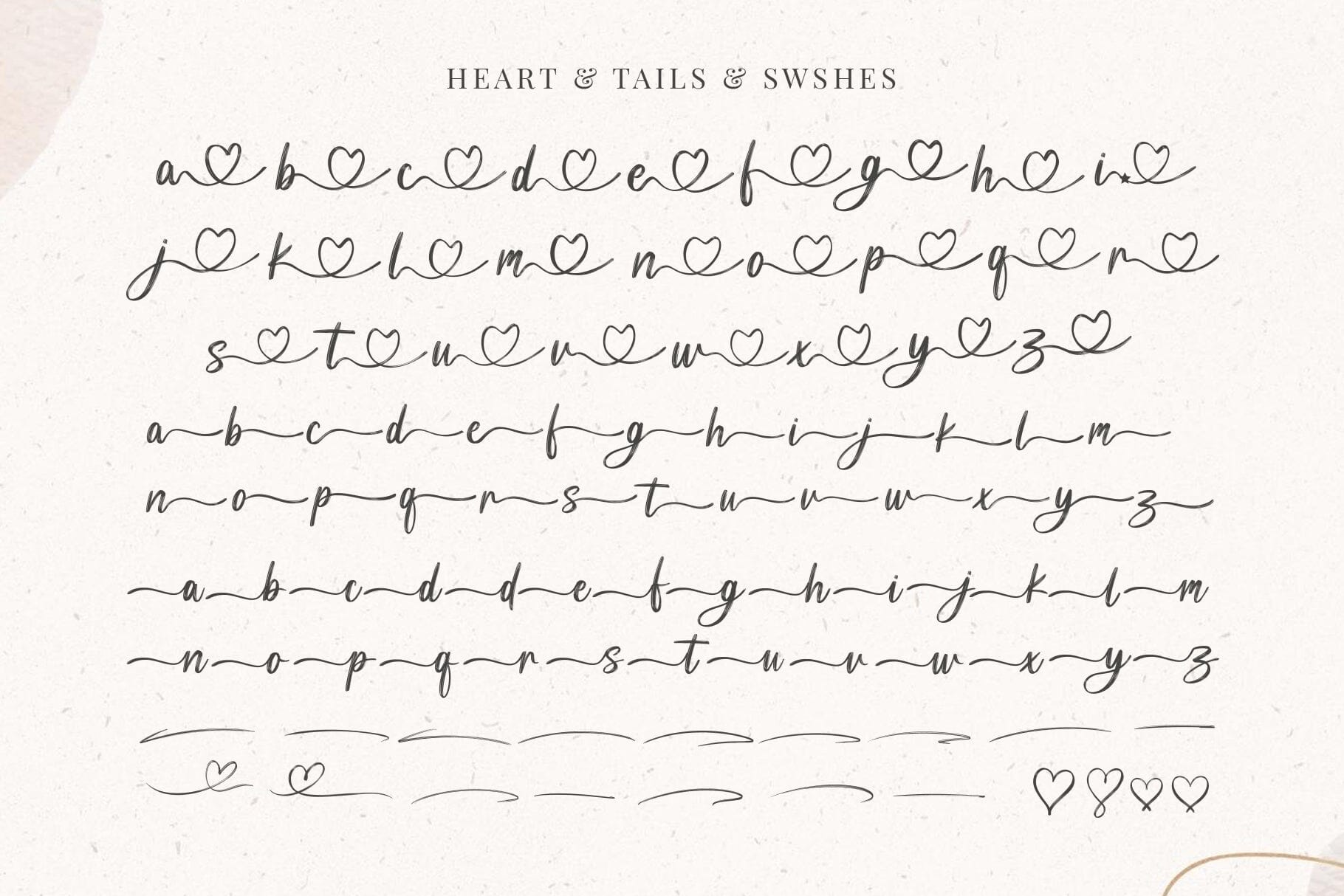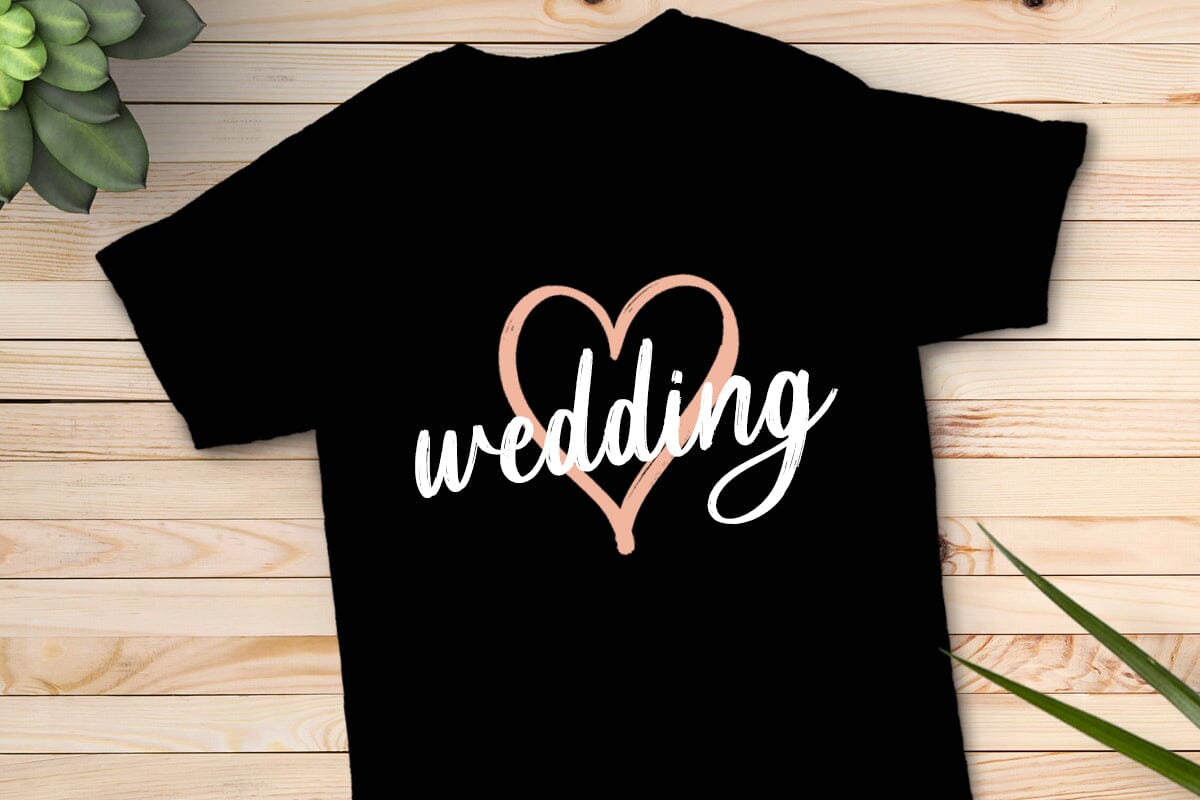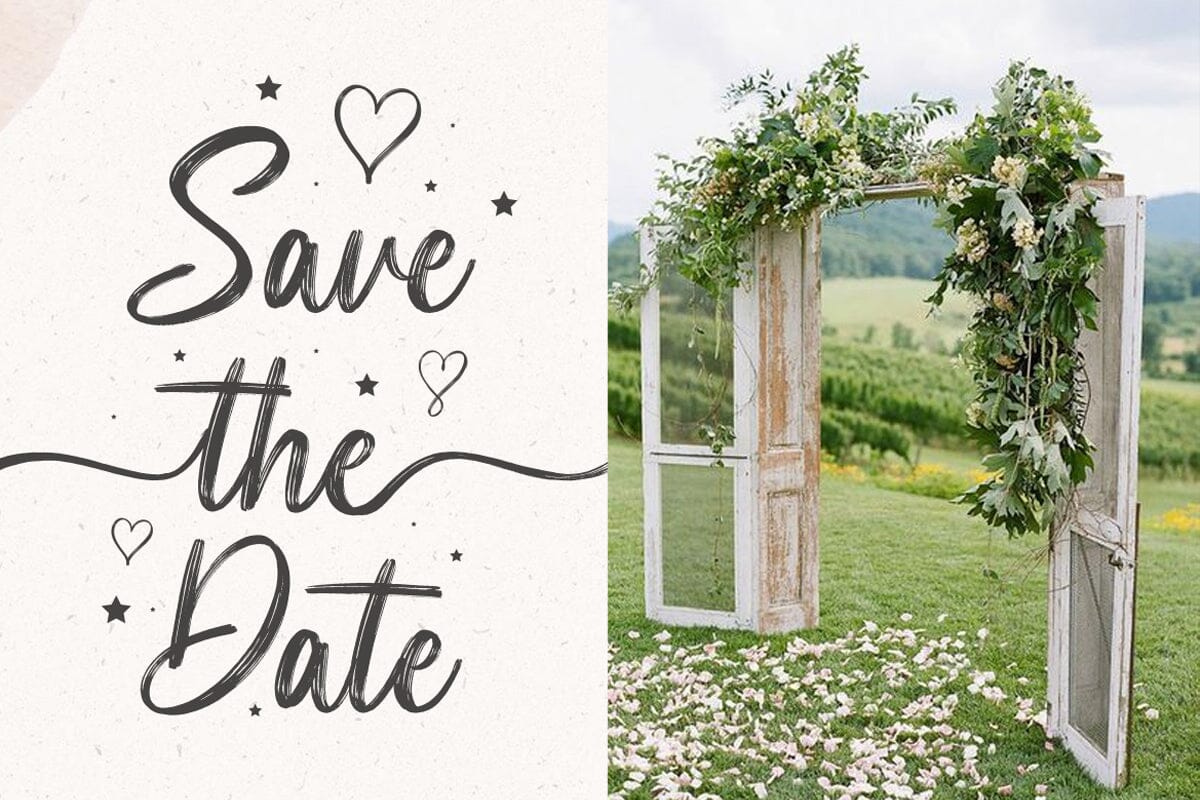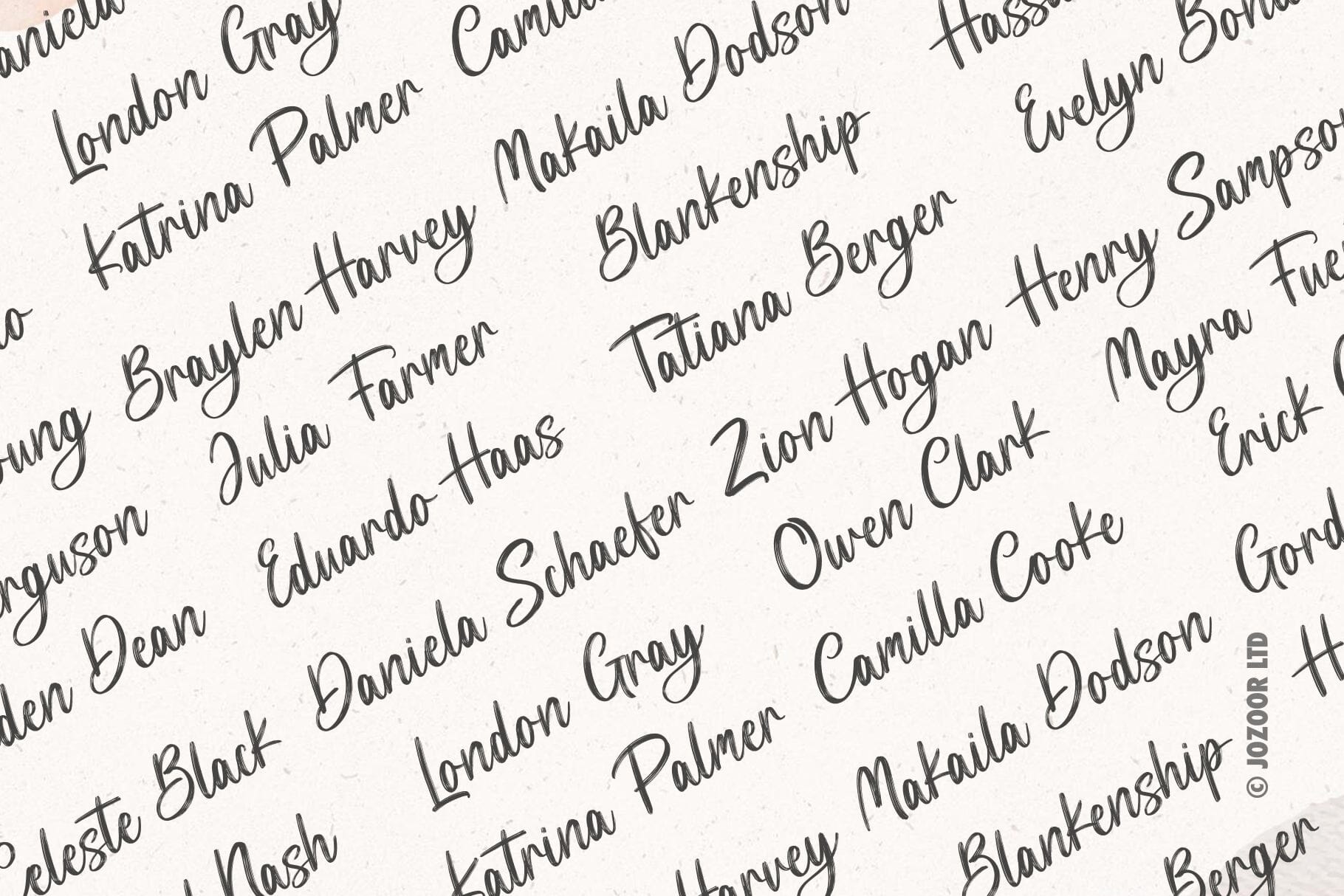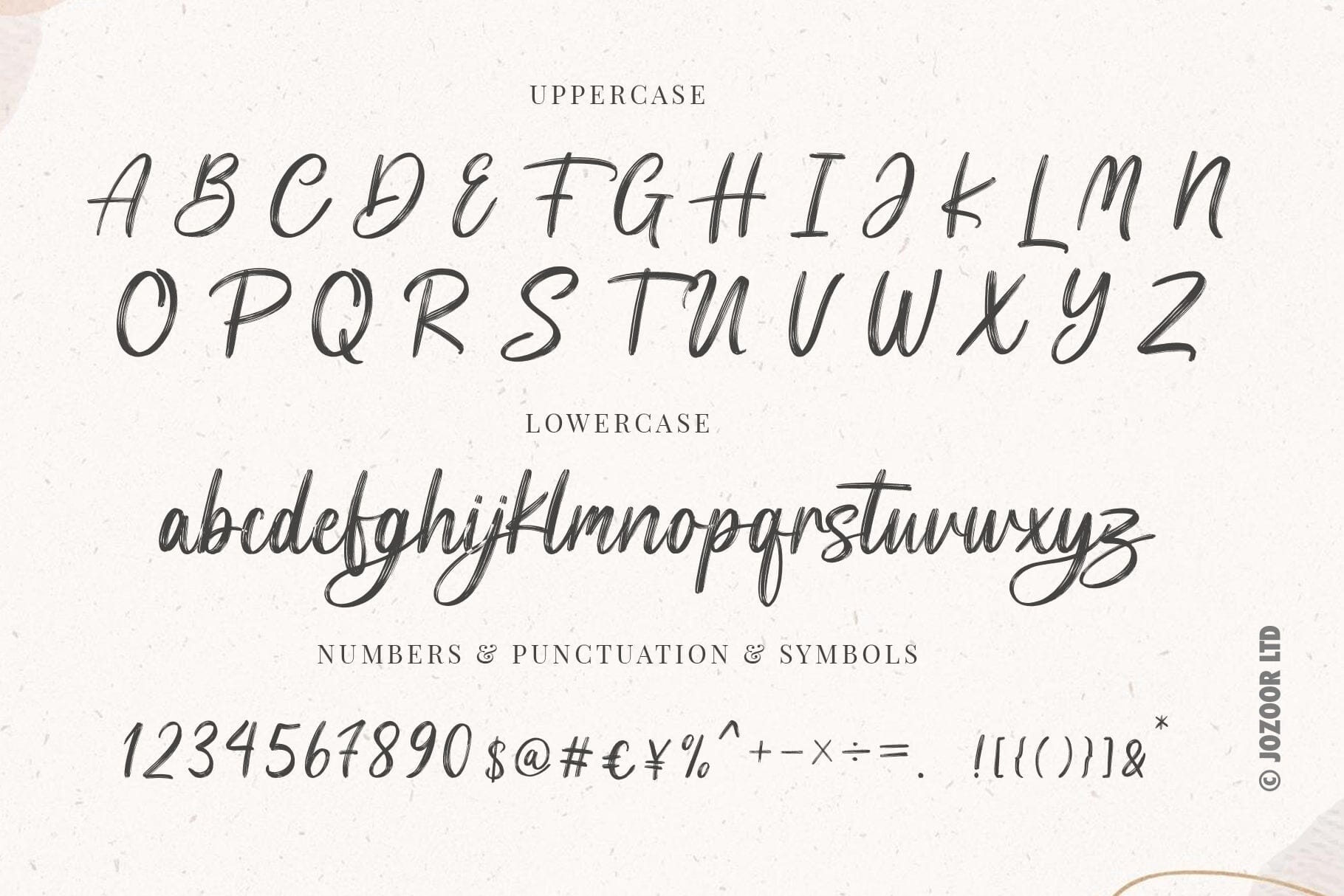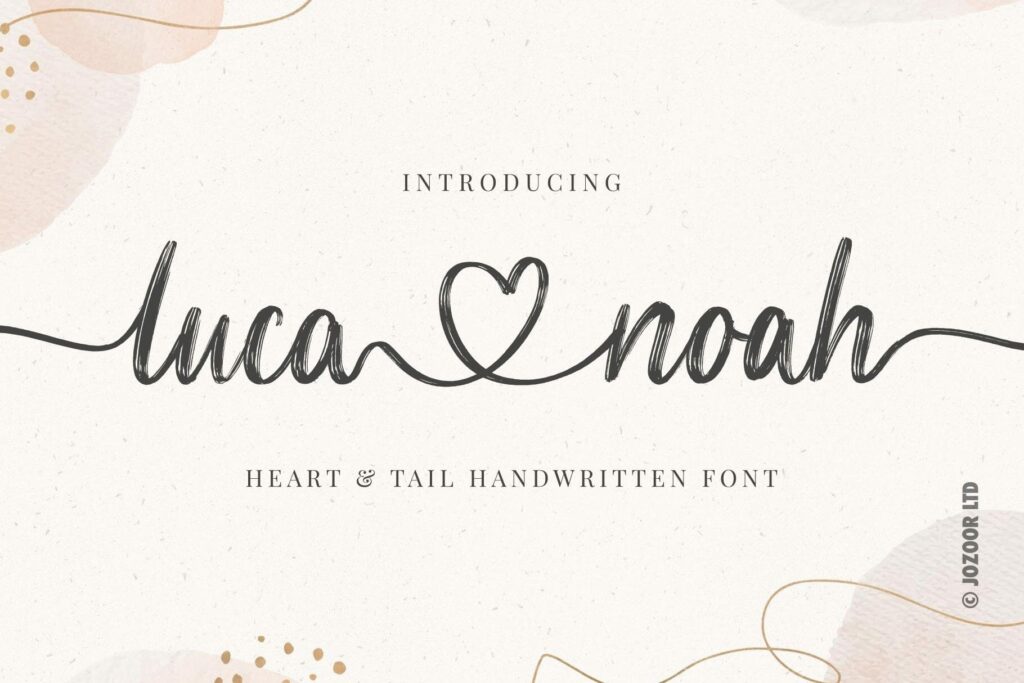
Luca Noah – Brush Heart Script Font
Luca Noah is a brush heart script font for wedding invitations, save the date cards, fine art papery, feminine branding, personal gift cards other romantic projects. Font Features: Beginning swashes (tails). Ending swashes (tails). Connecting hearts. You will get: OTF Font File. TTF Font File. SVG File. User’s Guide PDF file. Hope you enjoy, and happy designing 🙂 ♥ JOZOOR